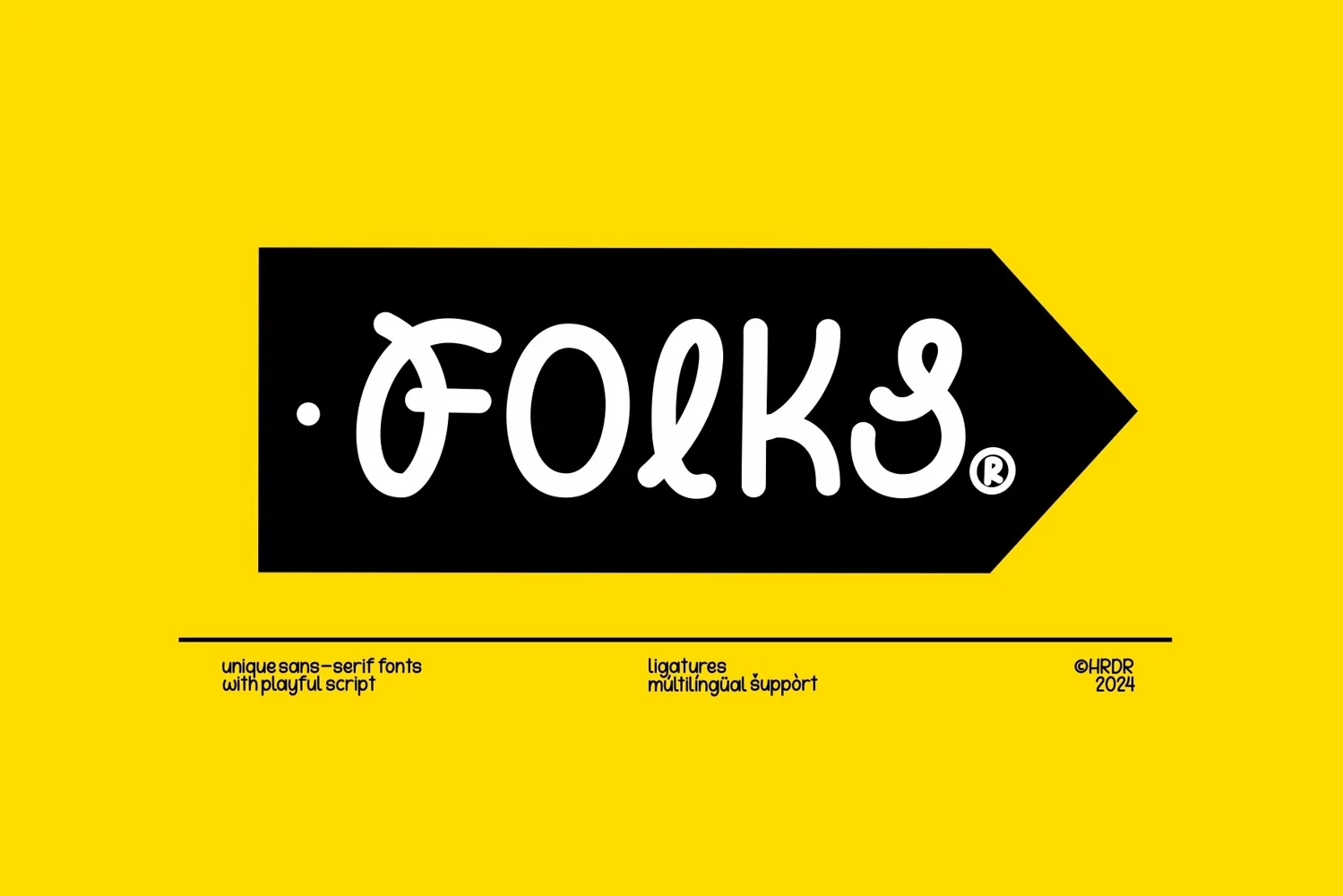
Folks Font is a new combines modern rounded sans-serif with playful script.
The capital letters have a Standart characters and have character alternatives in a unique handwritten style .
Folks is a perfectly choice for any creative endeavor, chic, lifestyle design such as logos, advertisements, stationery, branding project, display and magazine, invitation, corporate brand, product design, label, logo, business project and many other project with elegant touch.